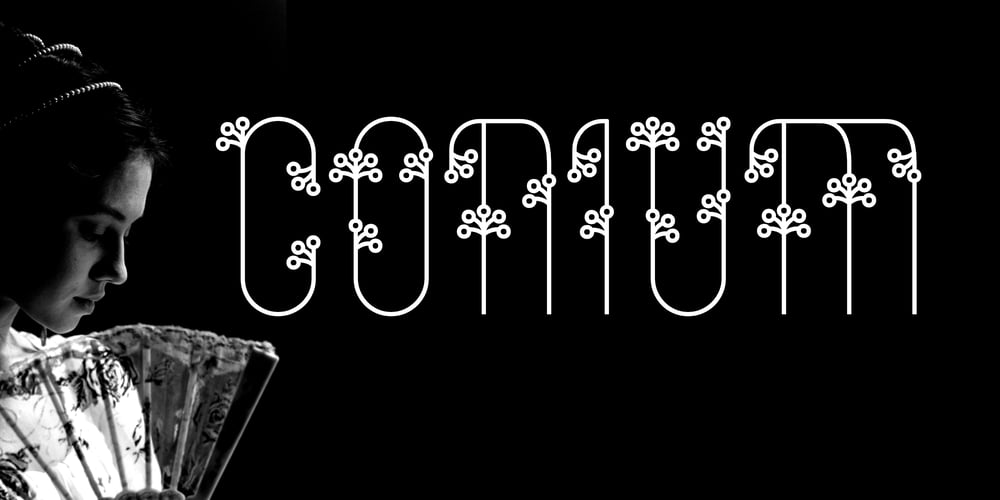
Conium Font Family was designed by Michael Kovacevich and published by MKGD. Conium contains 1 styles and family package options. I designed Conium to be a sister font to Nightshade. It was meant to have the appearance of the hemlock plant without being too derivative; it’s thin drooping stems conjure images of Hamlet’s mad Ophilia clutching sickly weeds while thinking them to be flowers. It also projects the appearance of an ice cold, wrought iron, cemetery gate. The sort that one might pass on a damp overcast day. A fitting compliment to an Edward Gorey illustration from top, right down to the frigid ground from which it sprang.Conium has a glyph count of 388 and supports the following languages Afrikaans, Albanian, Asu, Basque, Bemba, Bena, Bosnian, Catalan, Chiga, Colognian, Cornish, Croatian, Czech, Danish, Embu, English, Esperanto, Estonian, Faroese, Filipino, Finnish, French, Friulian, Galician, German, Gusii, Hungarian, Icelandic, Indonesian, Irish, Italian, Kabuverdianu, Kalaallisut, Kalenjin, Kamba, Kikuyu, Kinyarwanda, Latvian, Lithuanian, Low German, Lower Sorbian, Luo, Luxembourgish, Luyia, Machame, Makhuwa-Meetto, Makonde, Malagasy, Malay, Maltese, Manx, Meru, Morisyen, North Ndebele, Norwegian Bokmål, Norwegian Nynorsk, Nyankole, Oromo, Polish, Portuguese, Romanian, Romansh, Rombo, Rundi, Rwa, Samburu, Sango, Sangu, Scottish Gaelic, Sena, Shambala, Shona, Slovak, Slovenian, Soga, Somali, Spanish, Swahili, Swedish, Swiss German, Taita, Teso, Turkmen, Upper Sorbian, Vunjo, Walser, Zulu